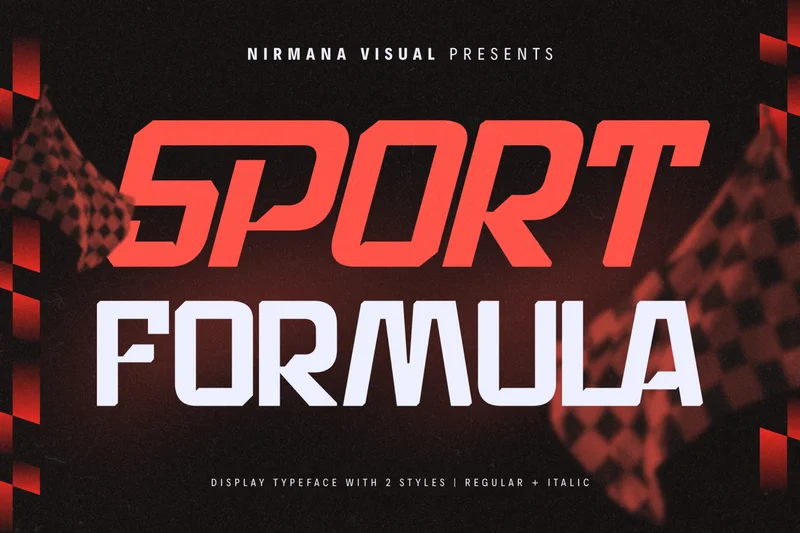
Sport Formula – Modern Logo Font
Sport Formula offers beautiful typographic harmony for a diversity of design projects, including logos & branding, social media posts, advertisements & product designs.